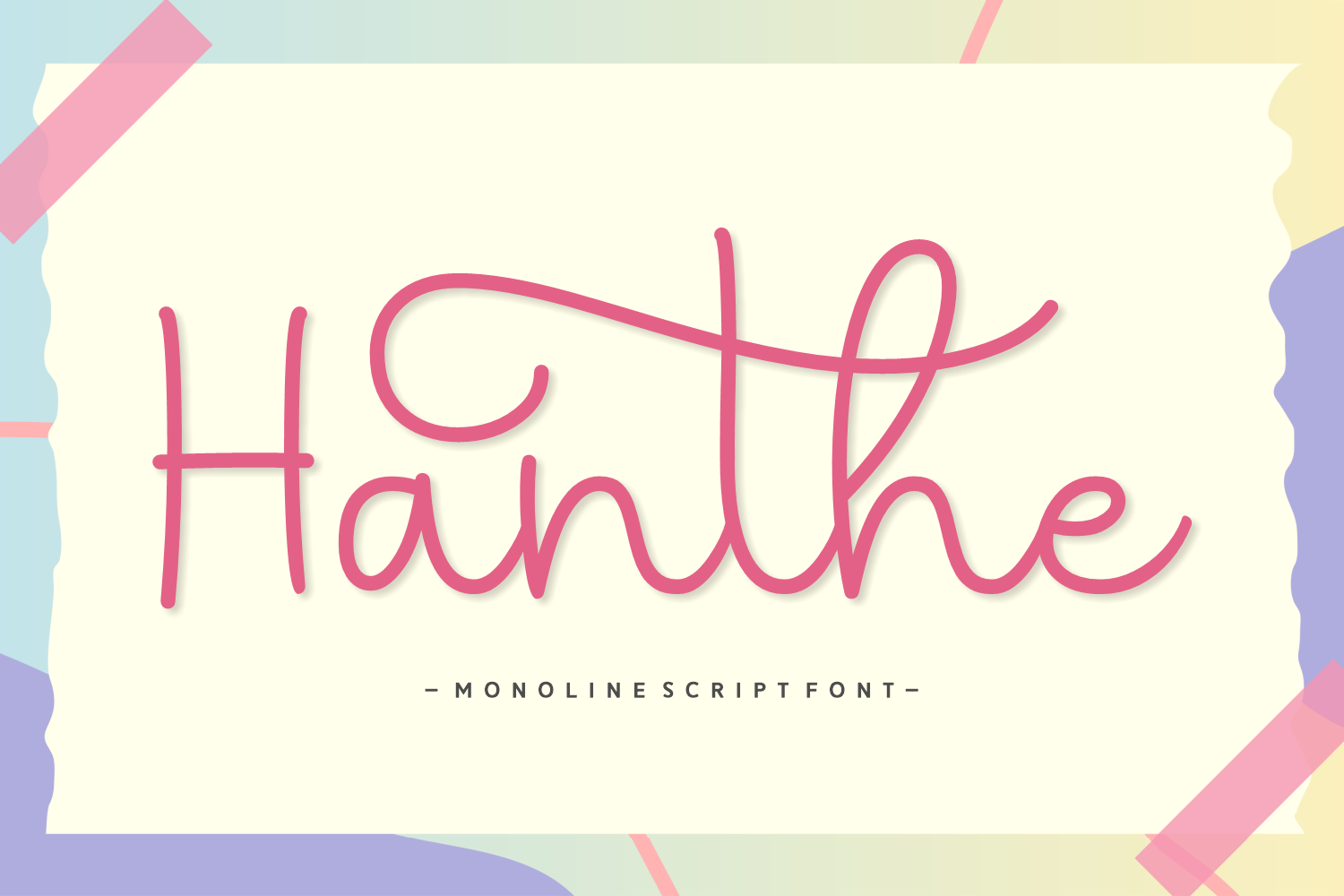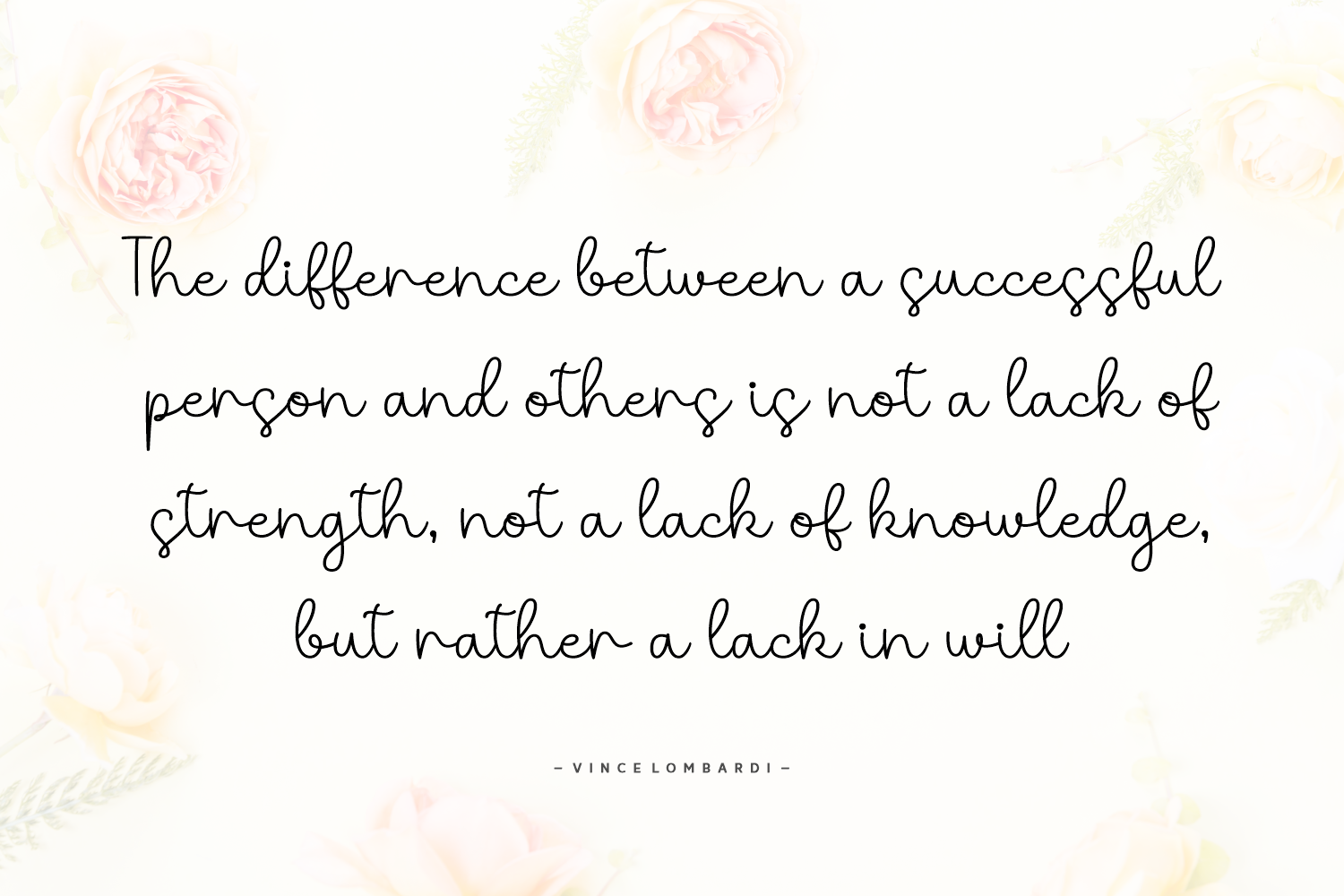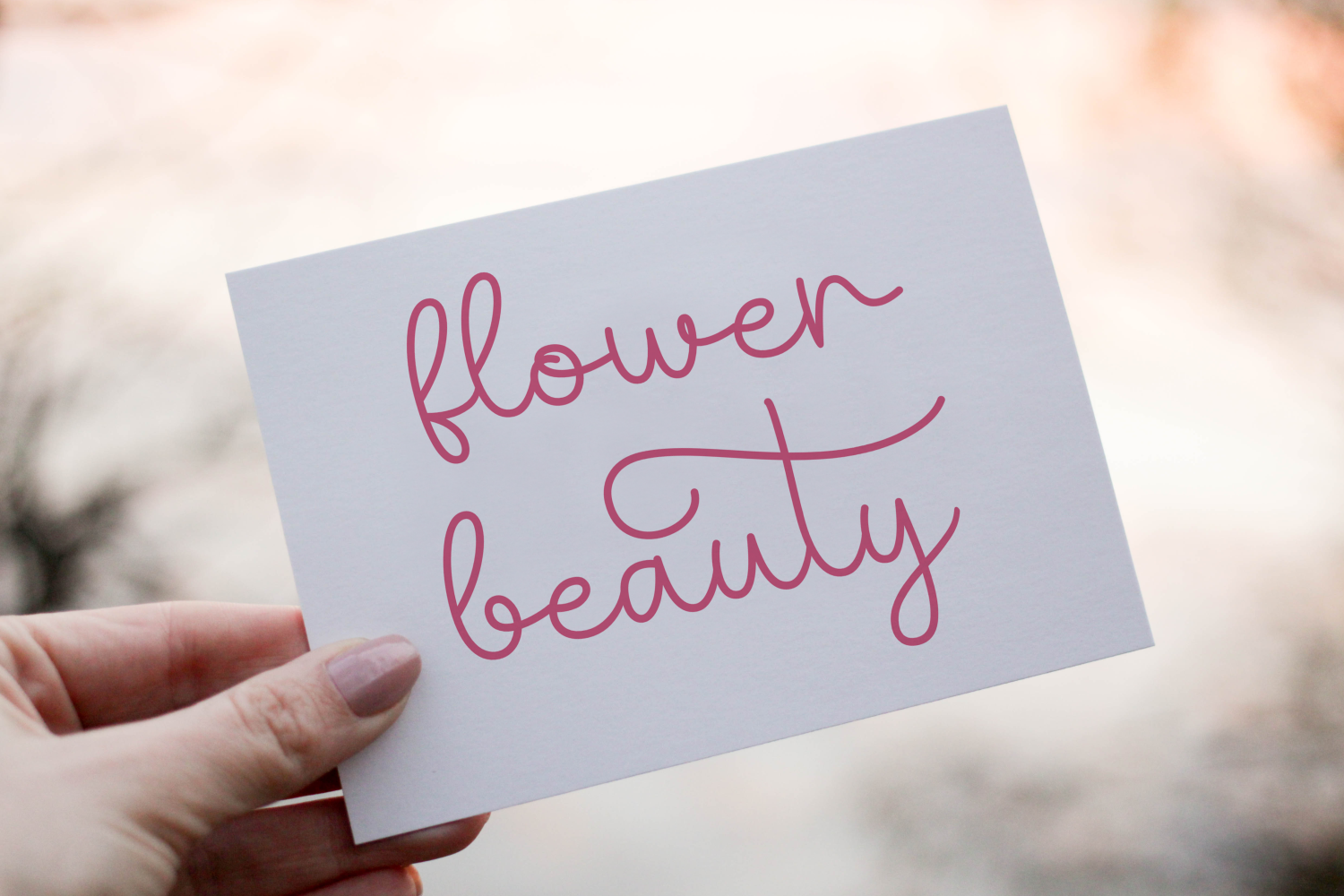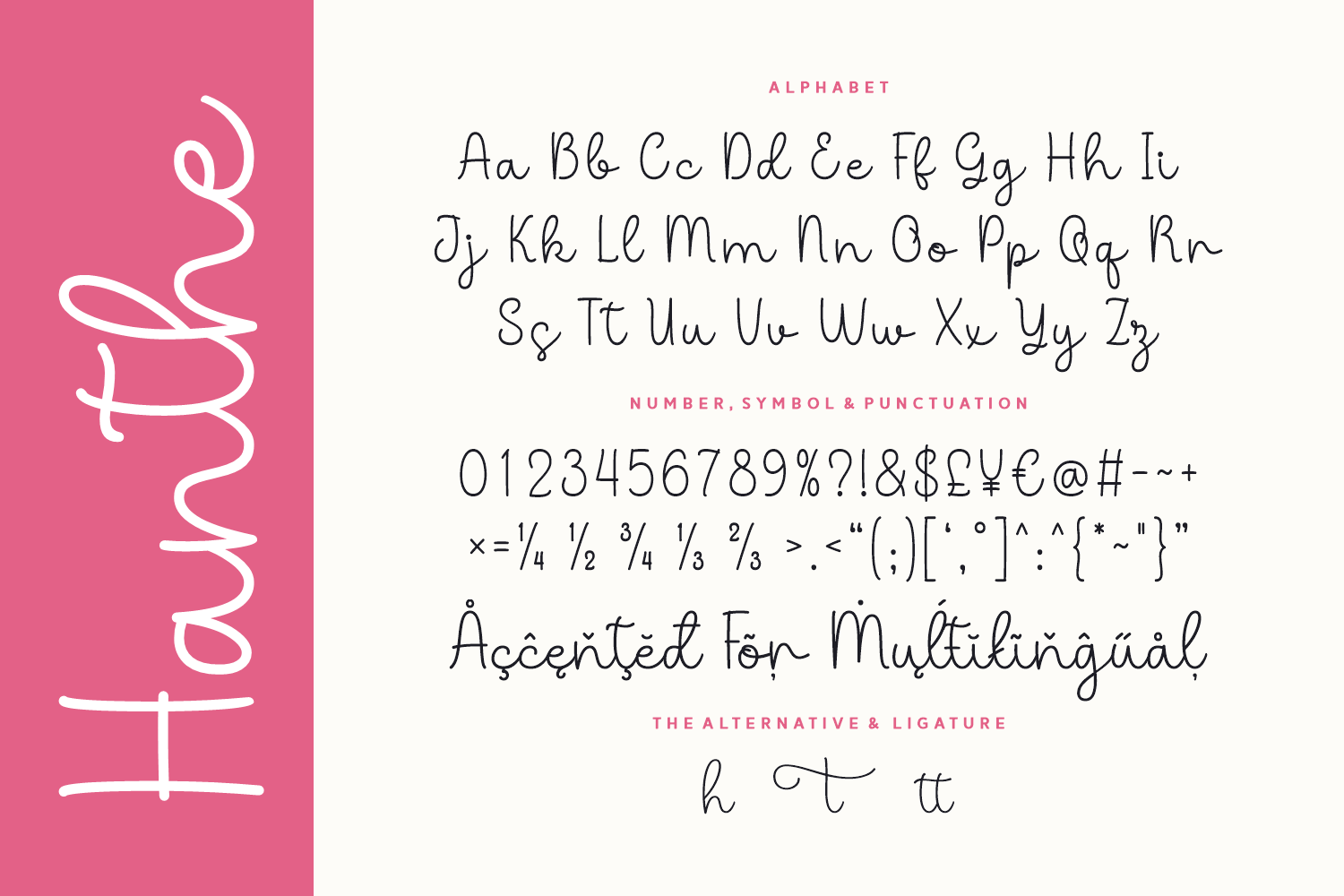
Hanthe is a sweet and simple monoline script font with a soft, friendly feel. Its clean curves and light strokes offer a delightful balance between elegance and playfulness—perfect for planners, stickers, logos, invitations, or pastel-themed branding.